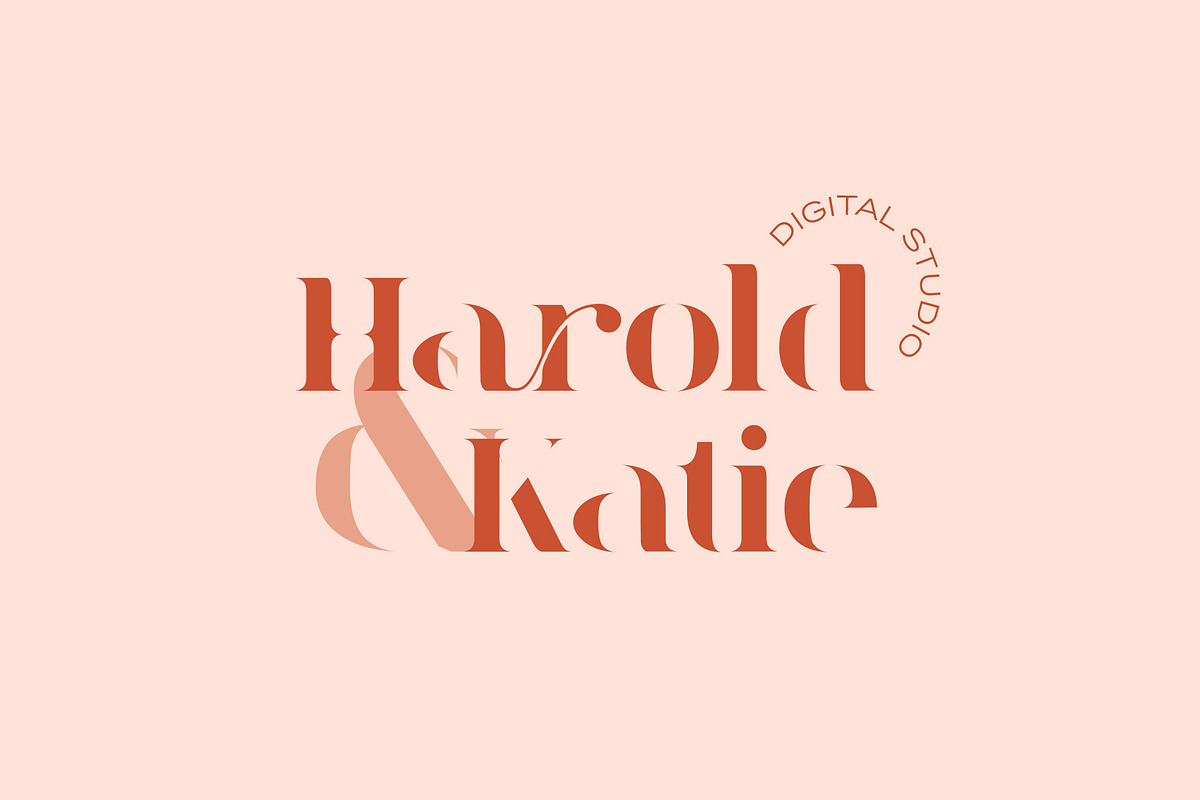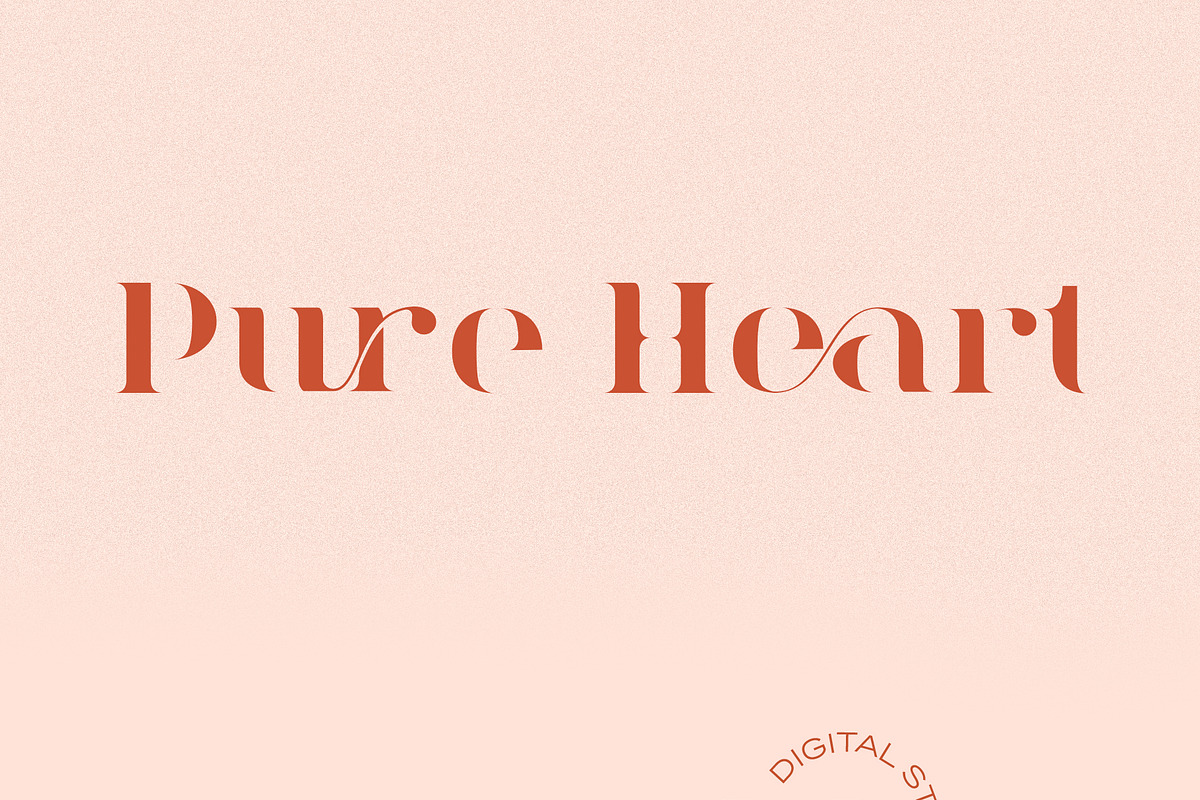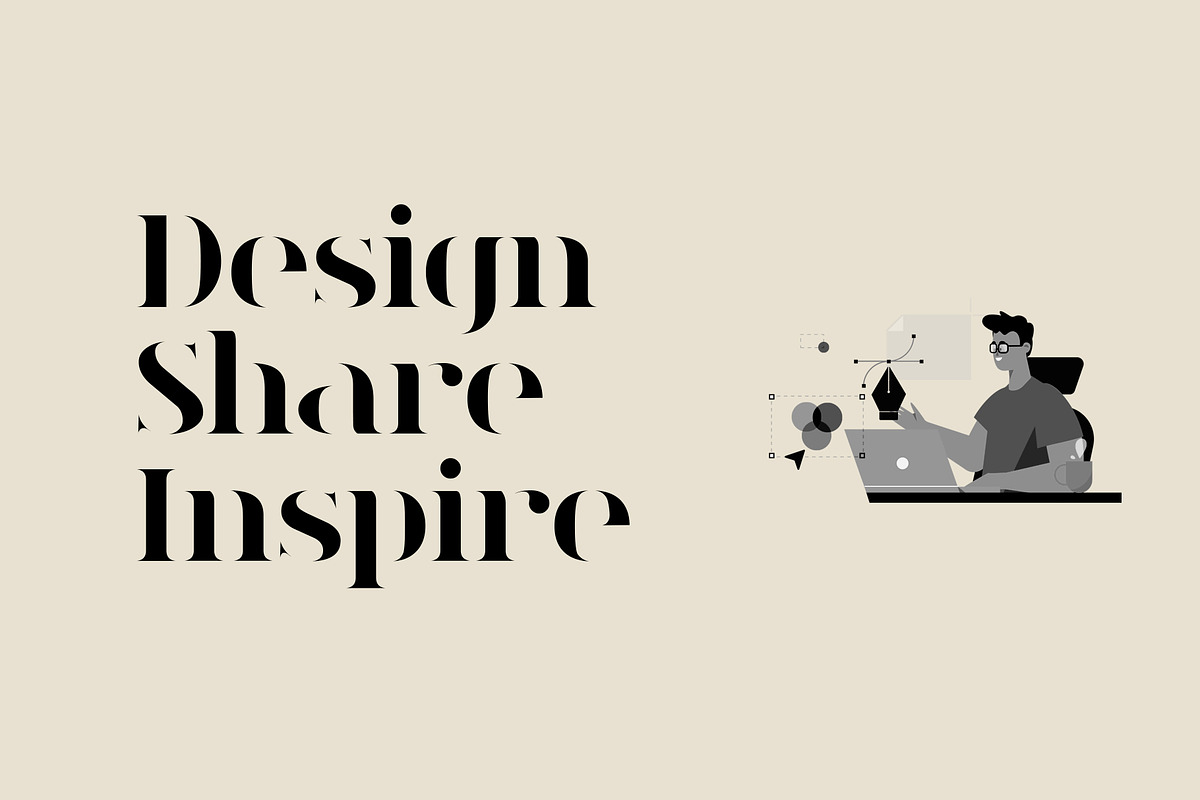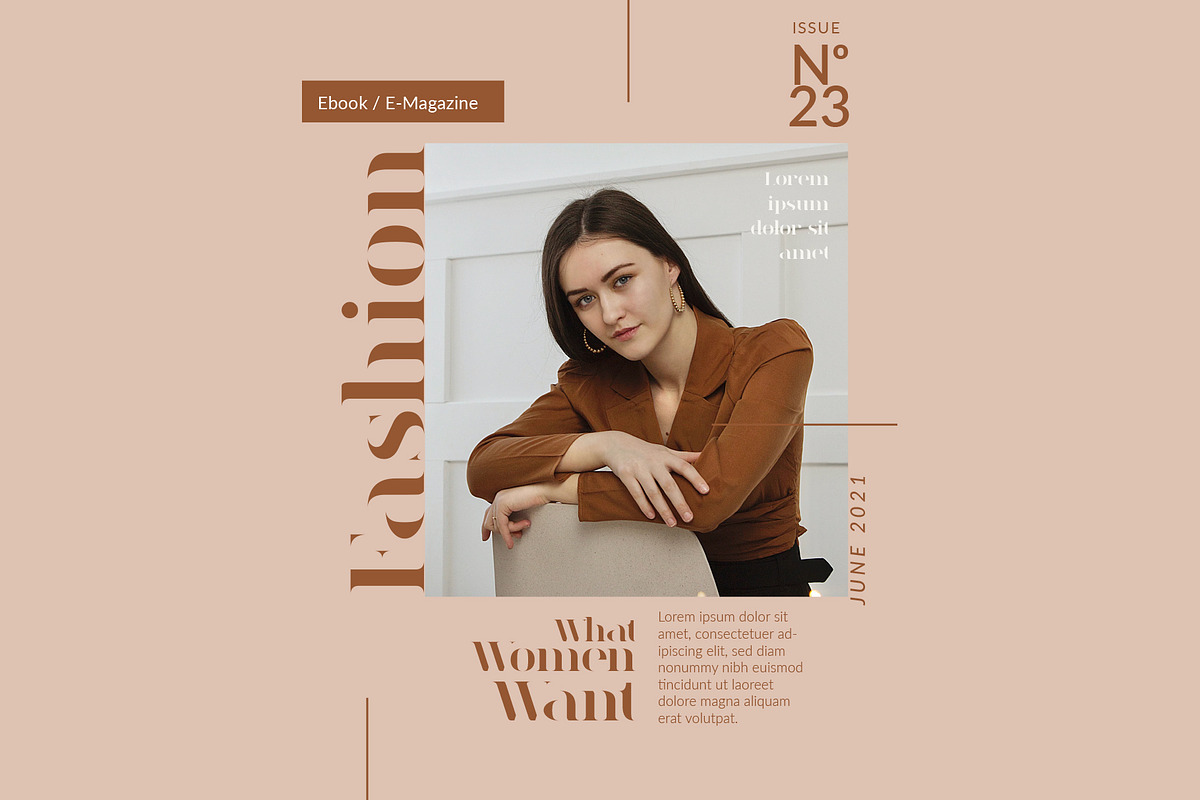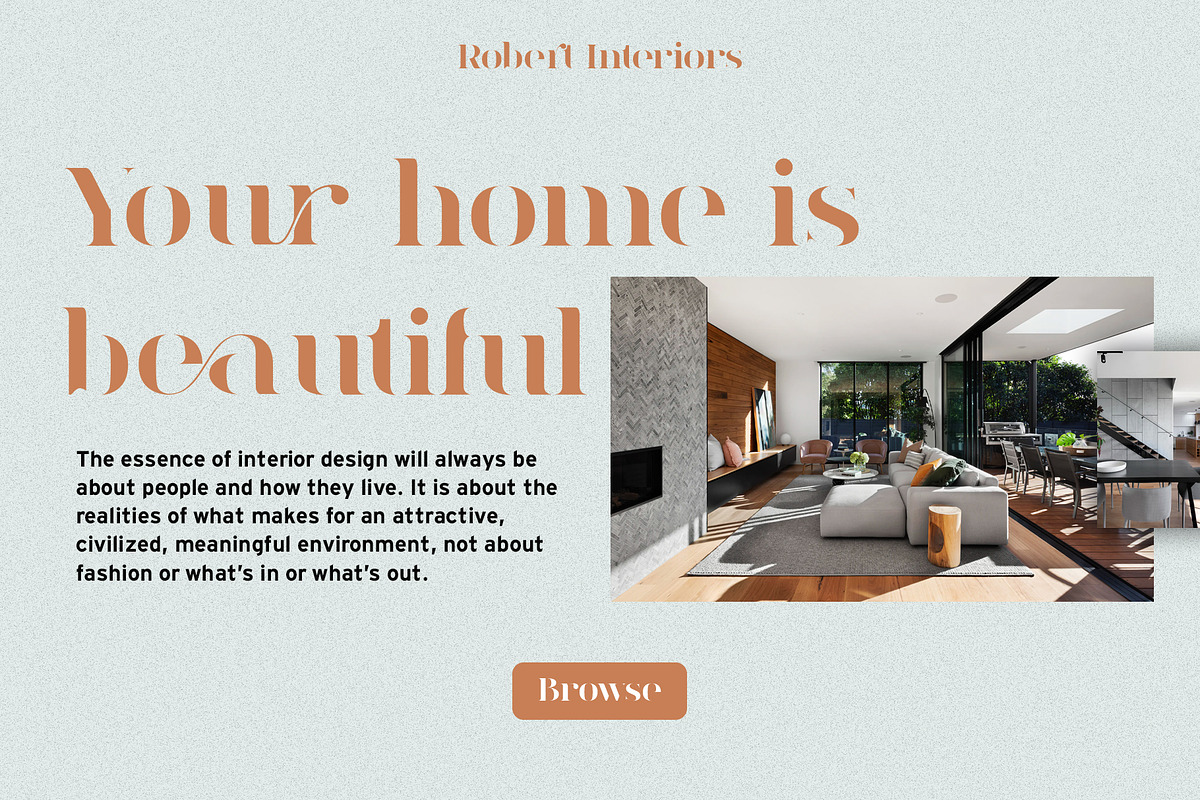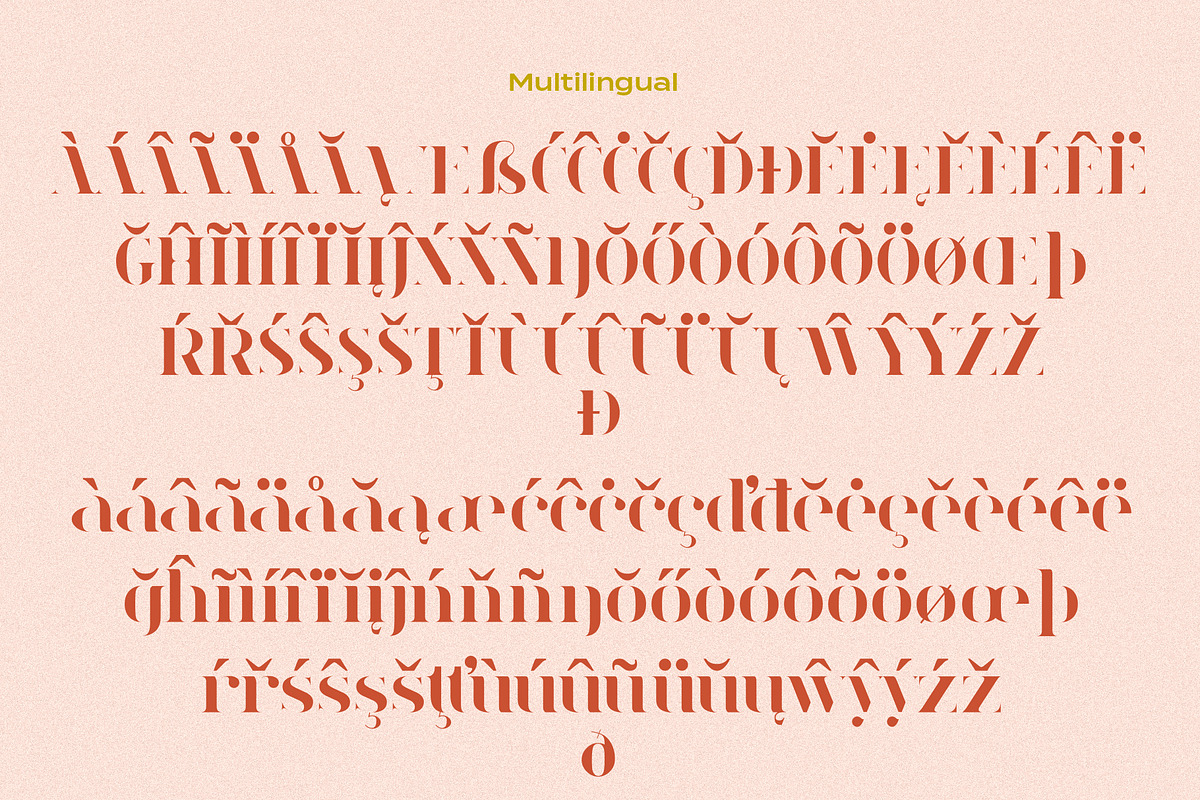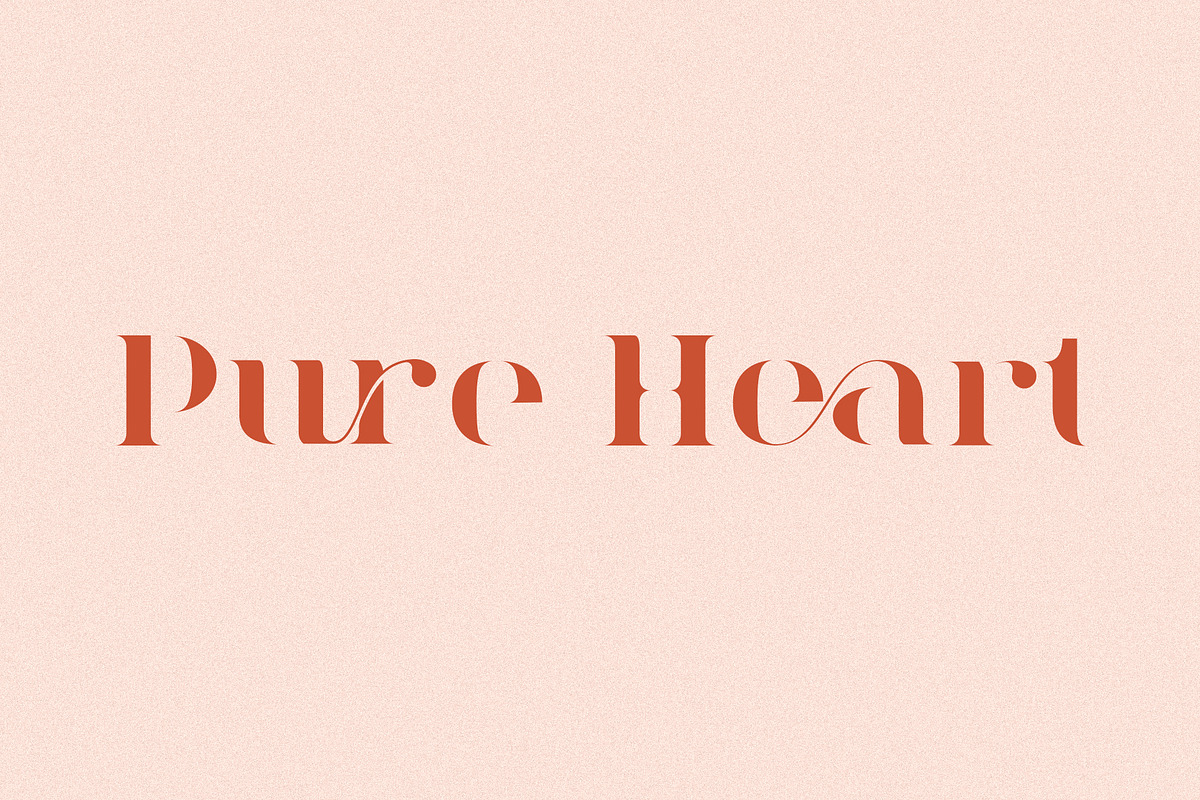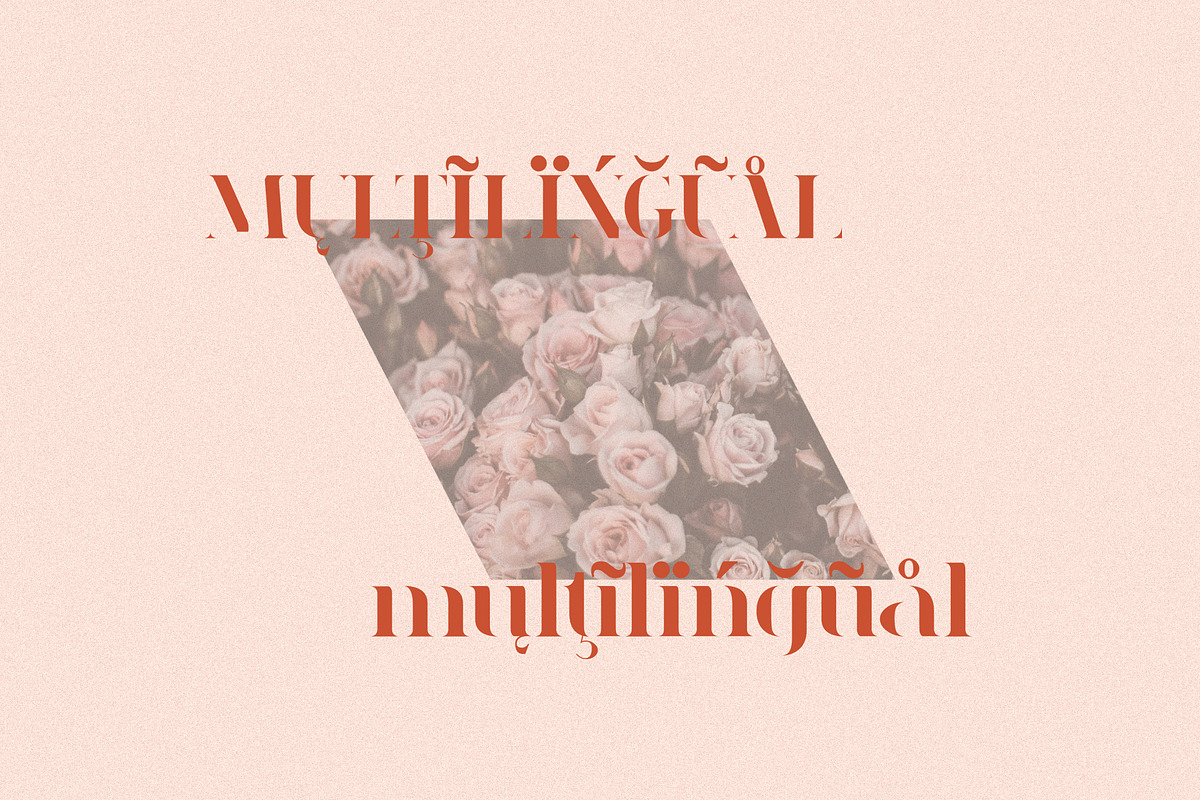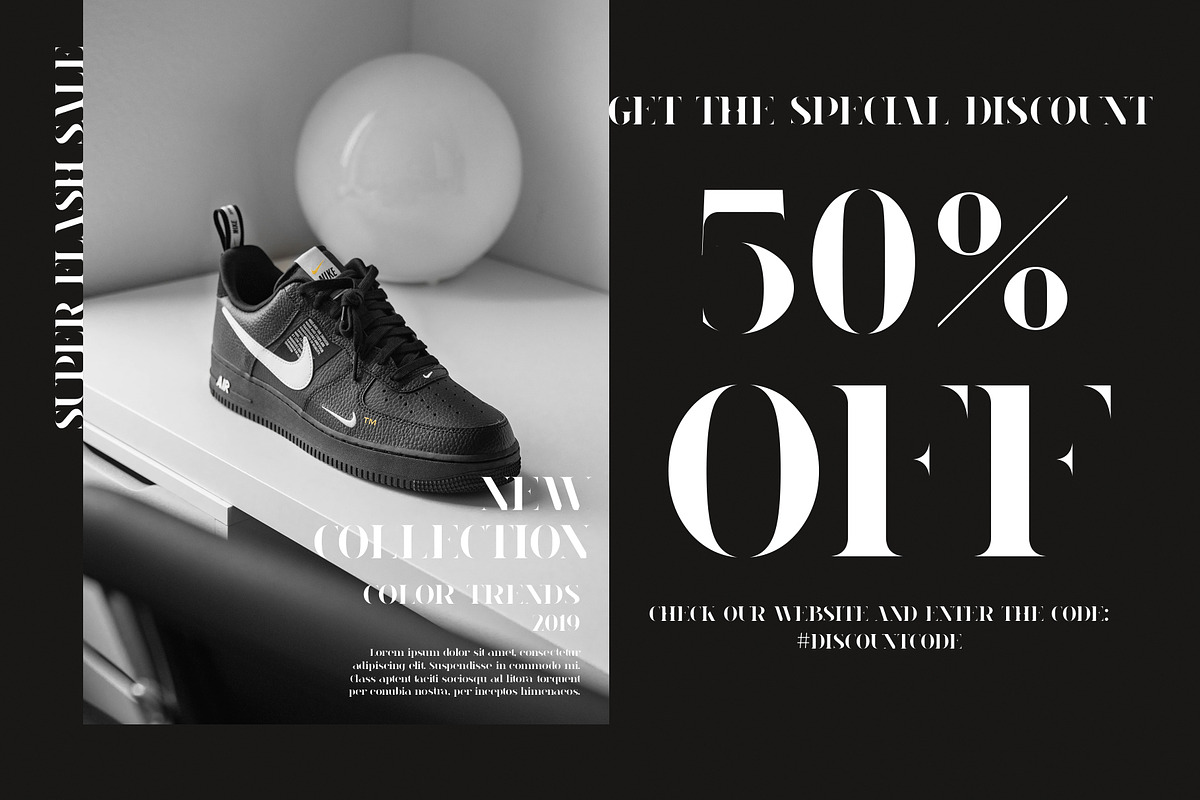
Pure Heart - Serif Font
Pure Heart is an elegant display font. Use it for headlines, titles, cover photos, web design, you name it.
Pure Heart is a multilingual font supporting many different languages. Please test your language in the preview box below.